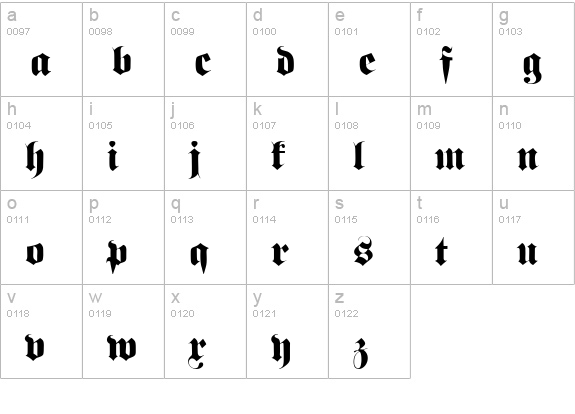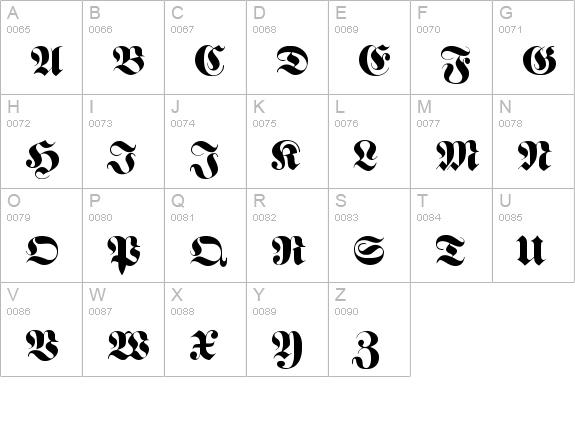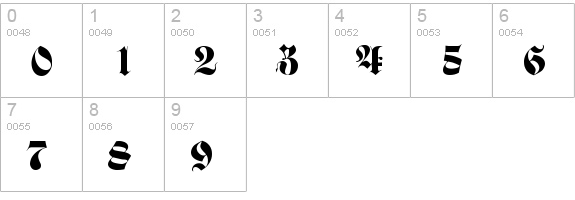
F692-Blackletter-Regular is the standard, neutral variant in the F692 typeface family \xE2\x80\x94 well suited to general body text, paragraphs, and standard typographic work.
F692-Blackletter-Regular is a stunning and versatile font that exudes a classic and elegant aesthetic. Its intricate blackletter design adds a touch of sophistication to any project, making it perfect for invitations, branding, and more. The sharp angles and ornate details of this font give it a timeless appeal that is sure to impress. Best of all, F692-Blackletter-Regular is available for free download at FontsMarket.com. This means you can easily incorporate this beautiful font into your designs without any cost. Whether you're working on a personal project or a professional endeavor, F692-Blackletter-Regular is a fantastic choice that will elevate your work to the next level. Download it today and start adding a touch of elegance to your designs.